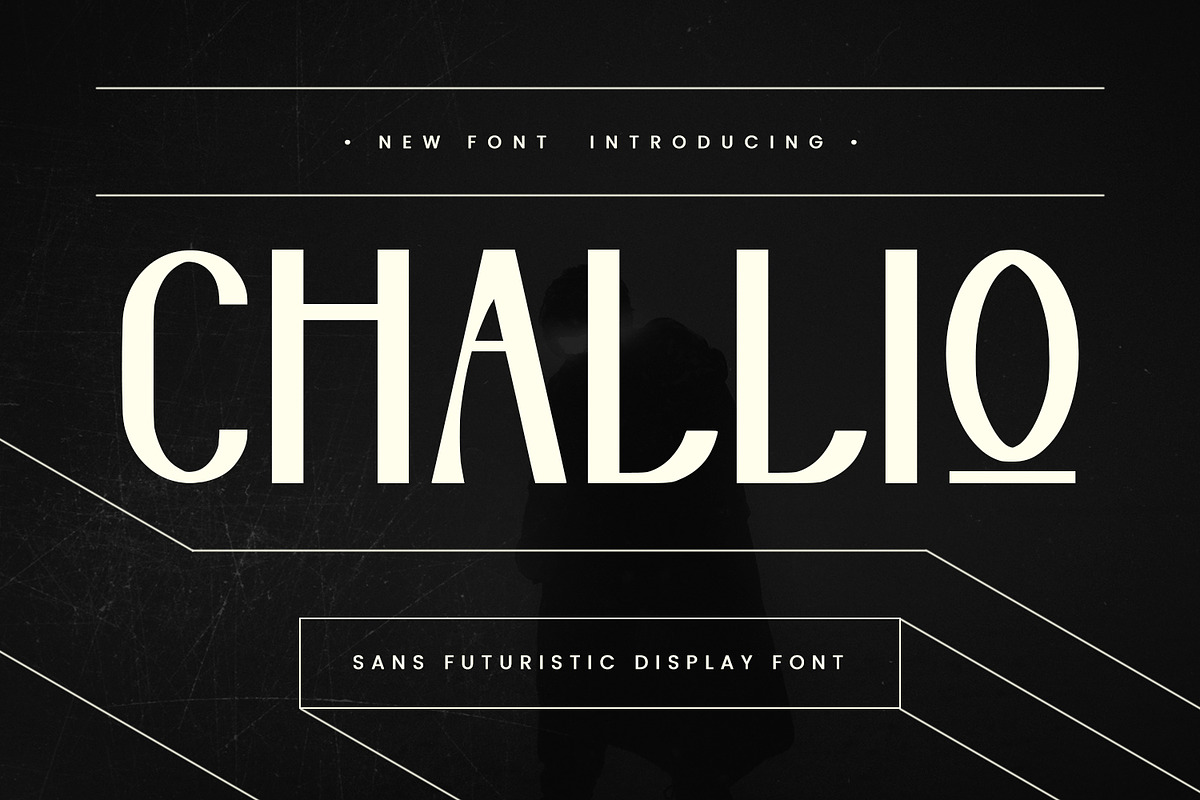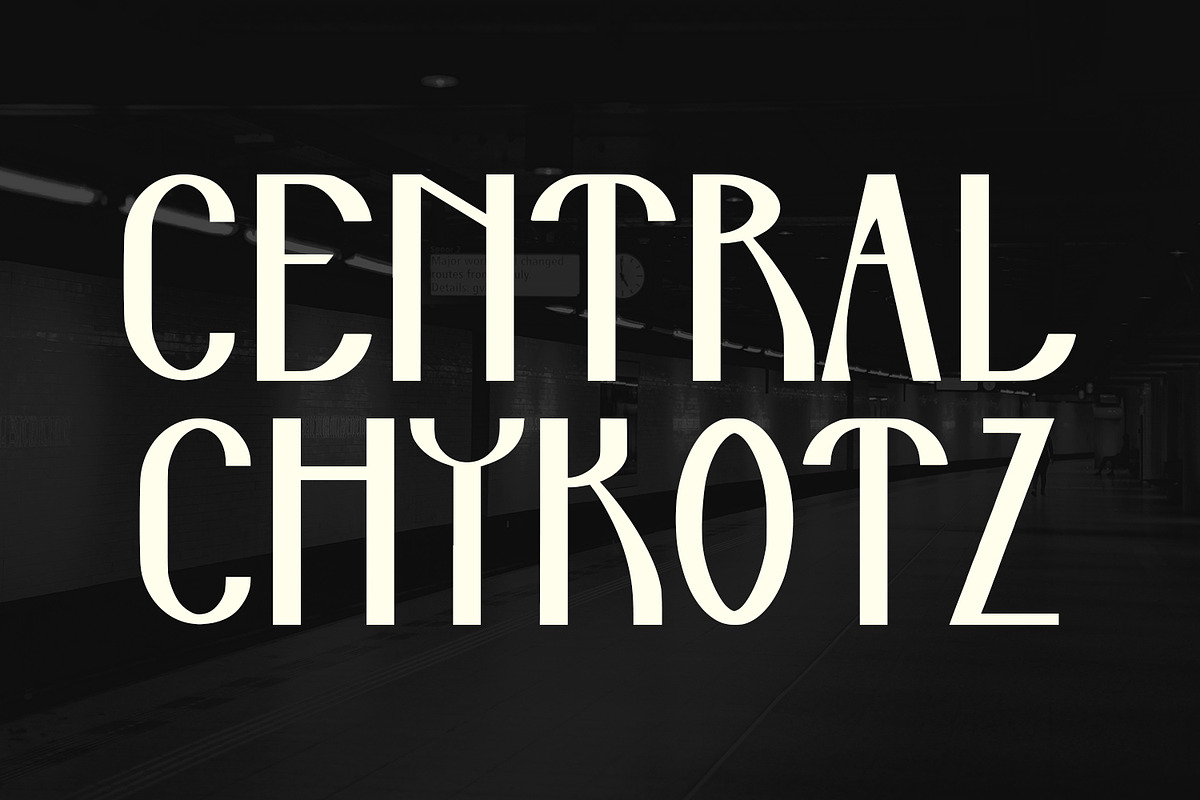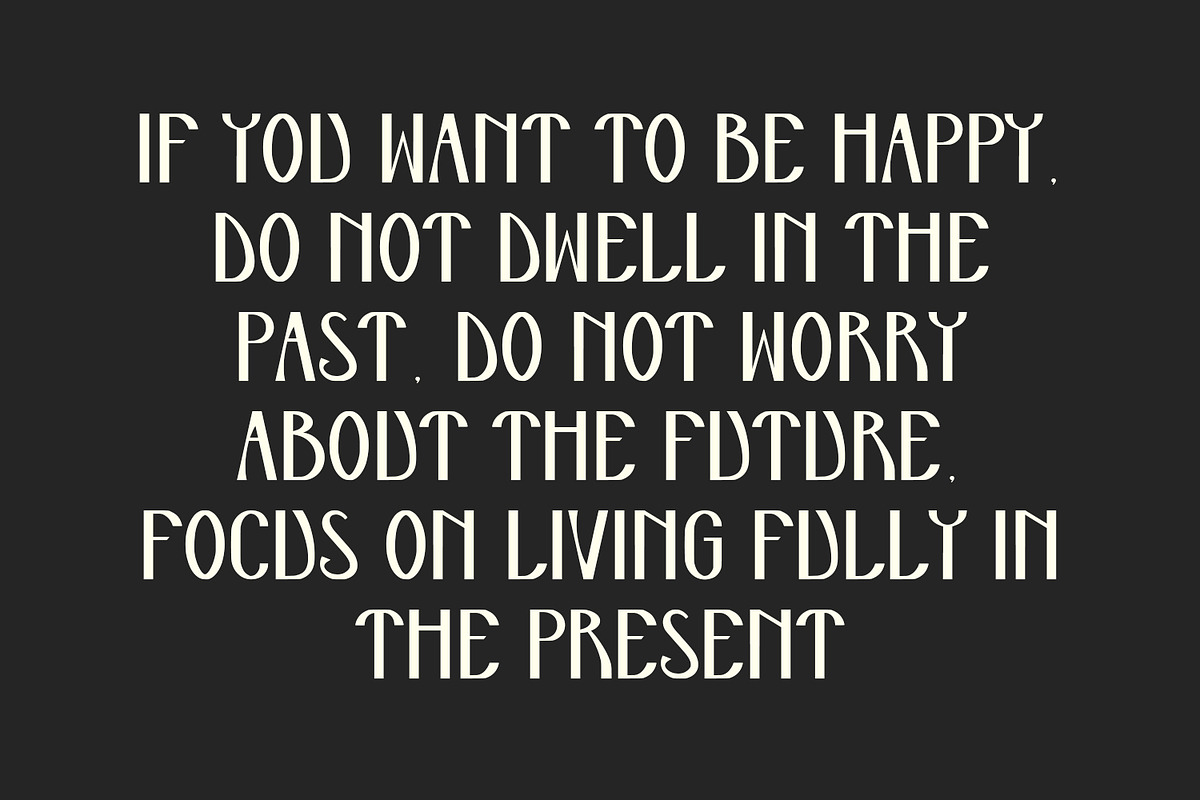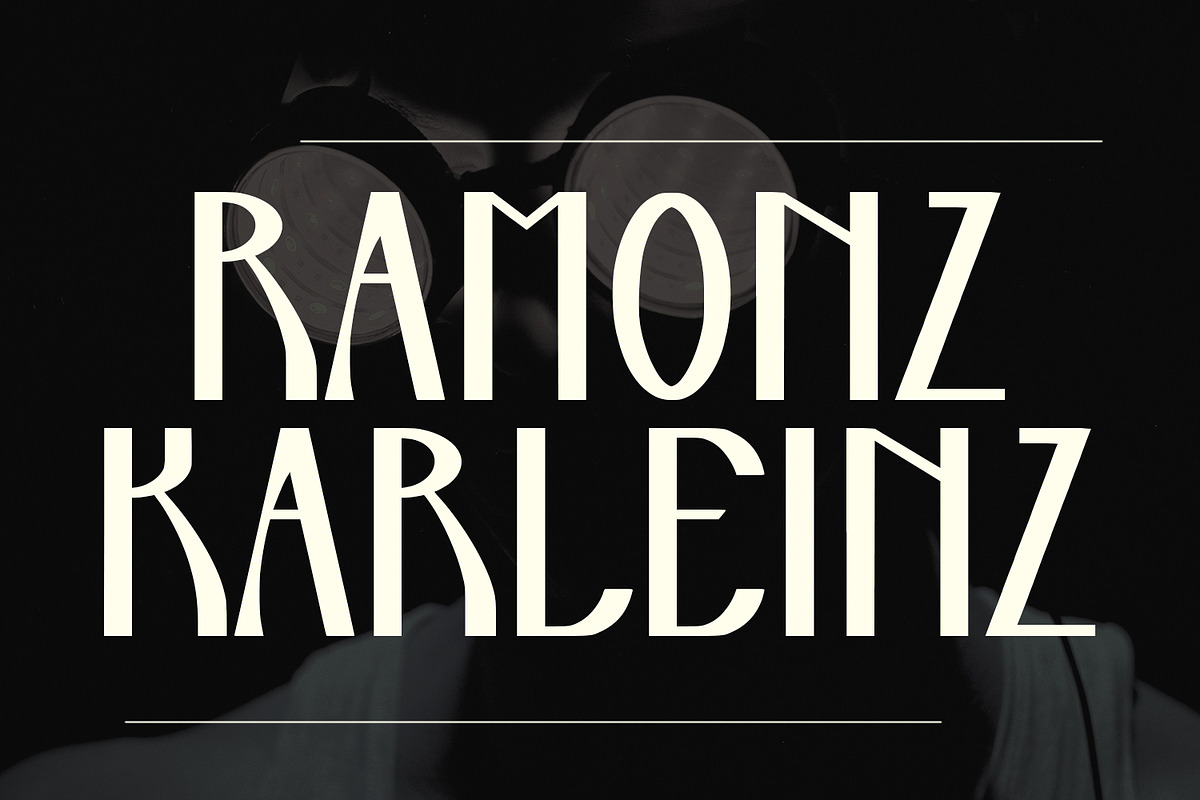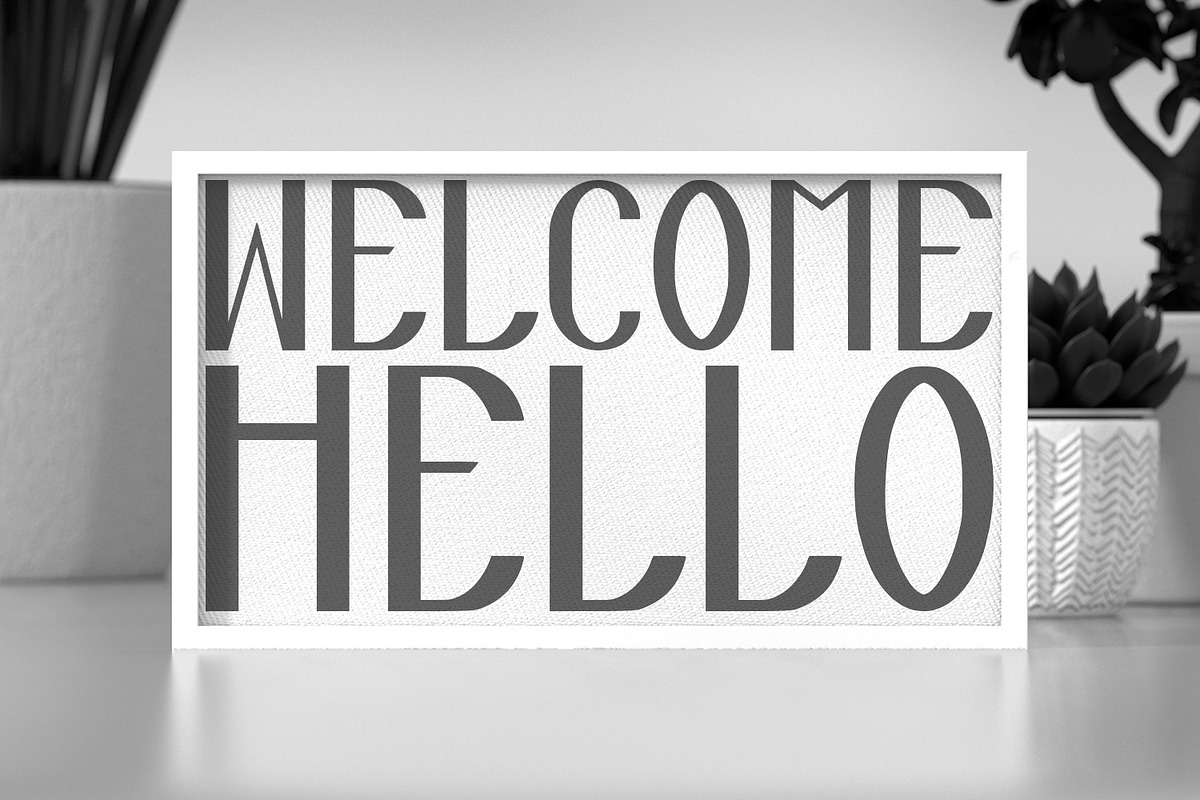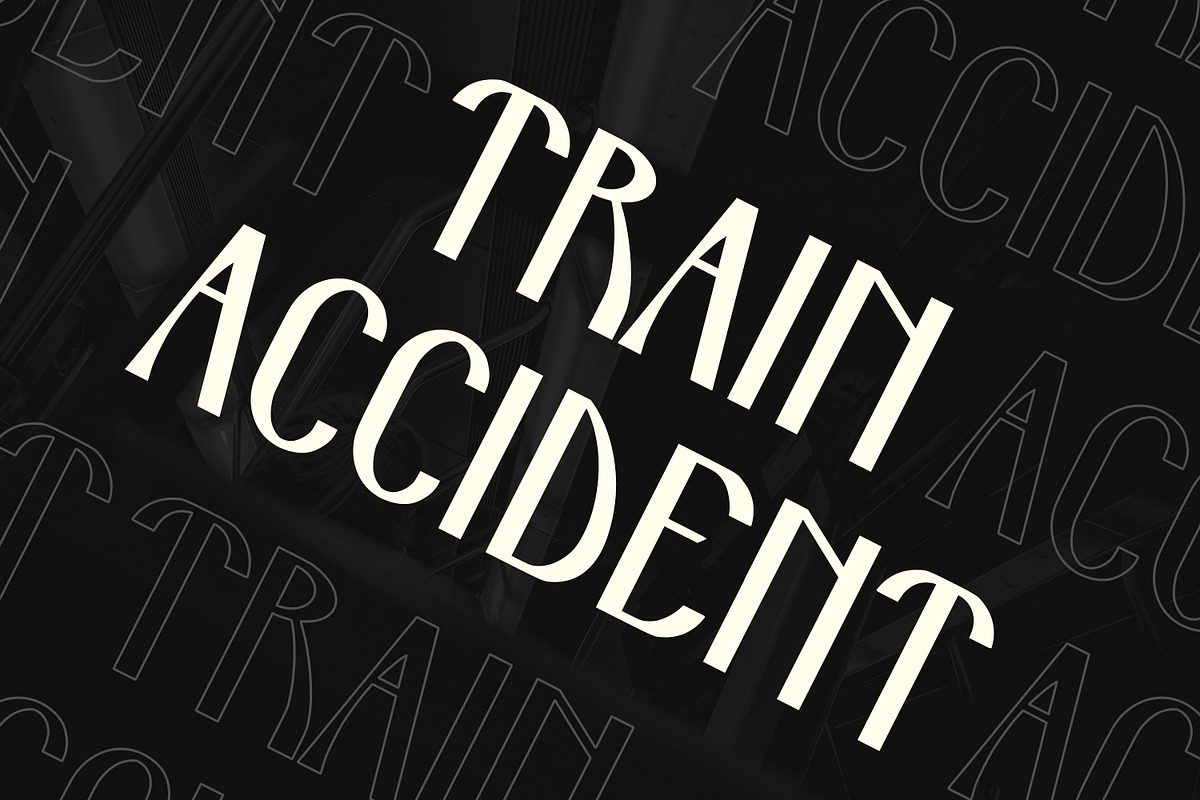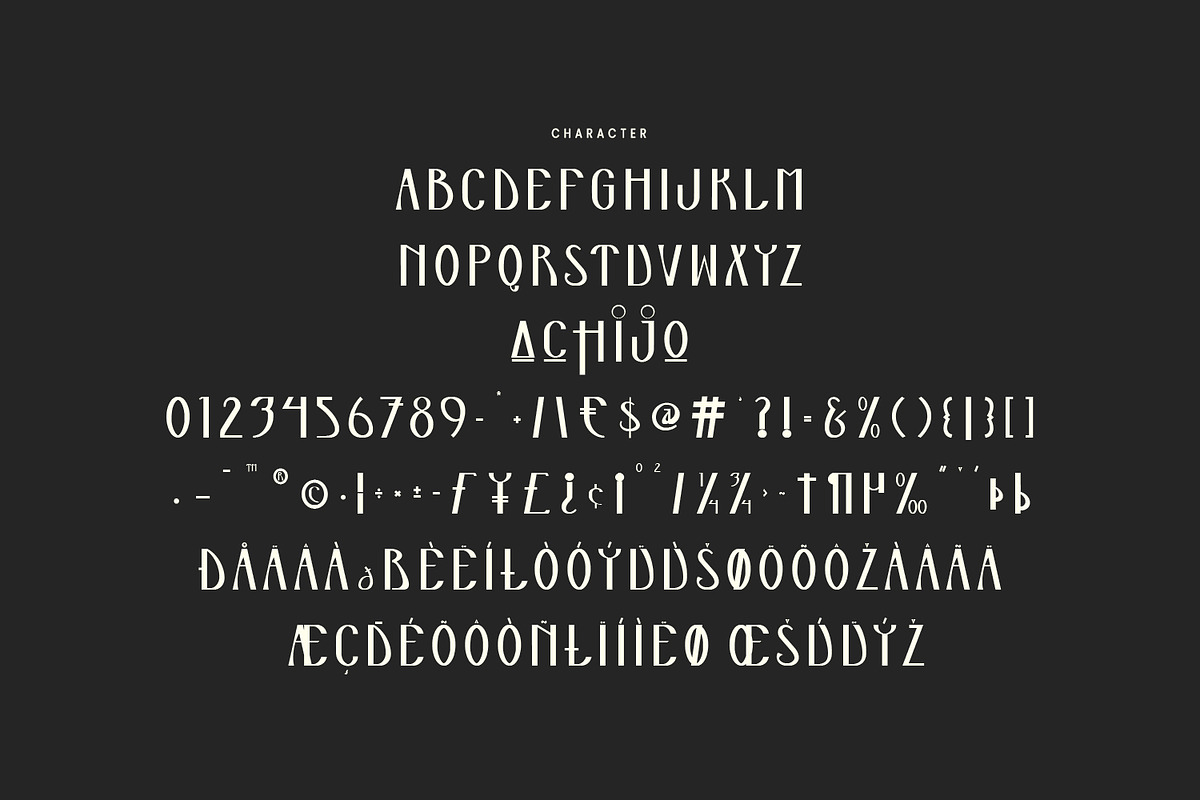
Challio Futuristic Display Font
Challio is a Sans Futuristic font inspired by the vintage 70's sign board, music, shop and movies, it has a rough stroke outline and then we fill it. Challio includes opentype features Alternates. It support multilingual more than 100+ language. This font is good for logo design, Movie Titles, Books Titles and any awesome project you create. Make a stunning work with Challio sans font.